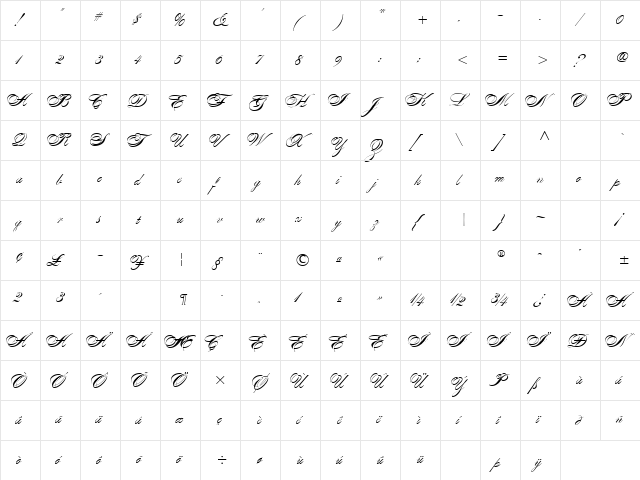
Alexandra Script Normal Regular
Design Context for Alexandra Script Normal Typeface
Alexandra Script Normal brings a calligraphic fluidity to the page — its connecting strokes and expressive curves give it an unmistakably human quality.
Font Pairing: Combine Alexandra Script Normal with a simple geometric sans for maximum contrast — the tension between flowing curves and clean structure is a classic typographic pairing.
Pro Tip: Use Alexandra Script Normal for short runs of text — names, titles, or taglines. Extended body copy in script faces tires the eye quickly.